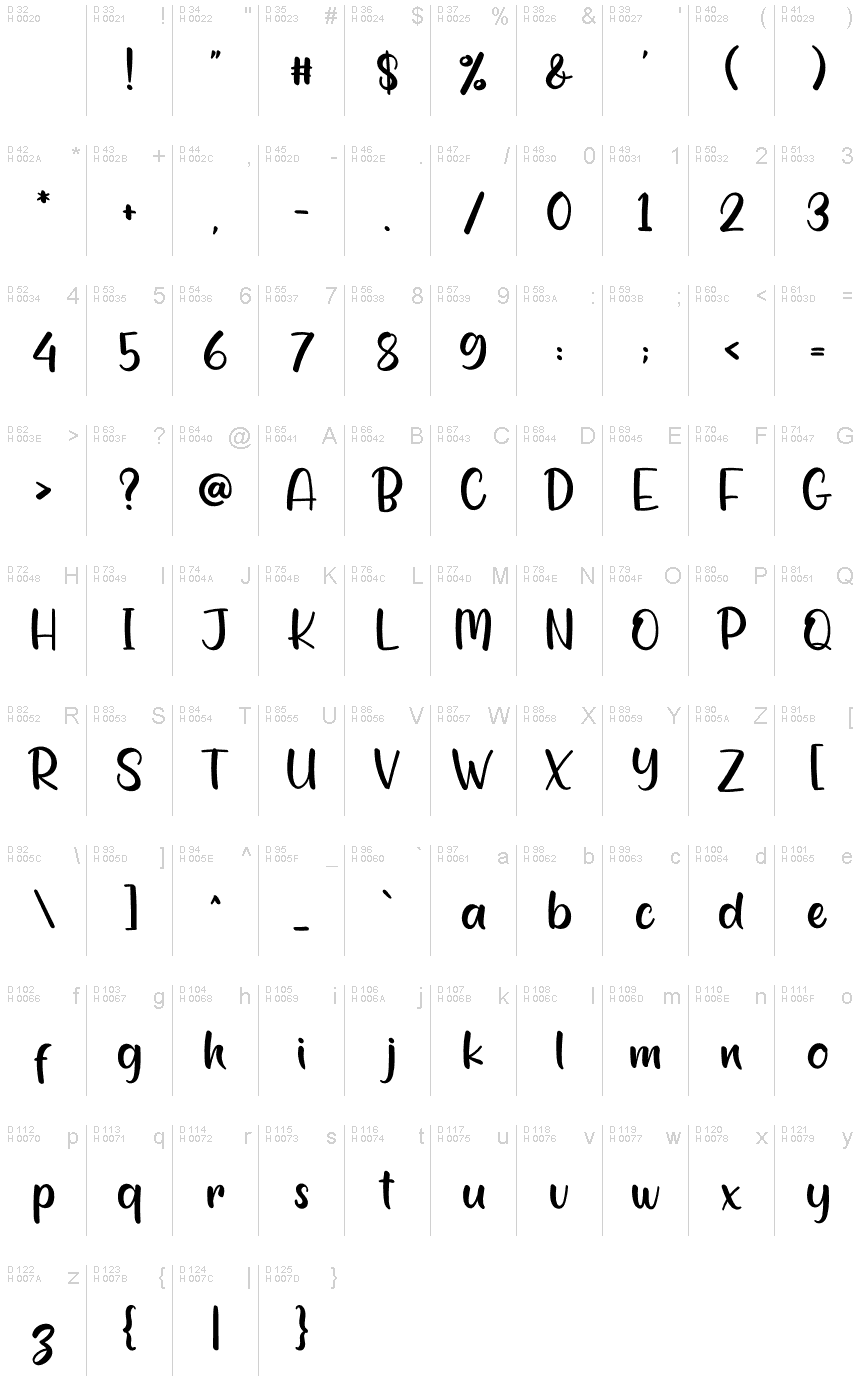
Apple Berry
Apple Berry is a playful and friendly display font. It can easily be matched to an incredibly large set of projects, so add it to your creative ideas and notice how it makes them stand out!